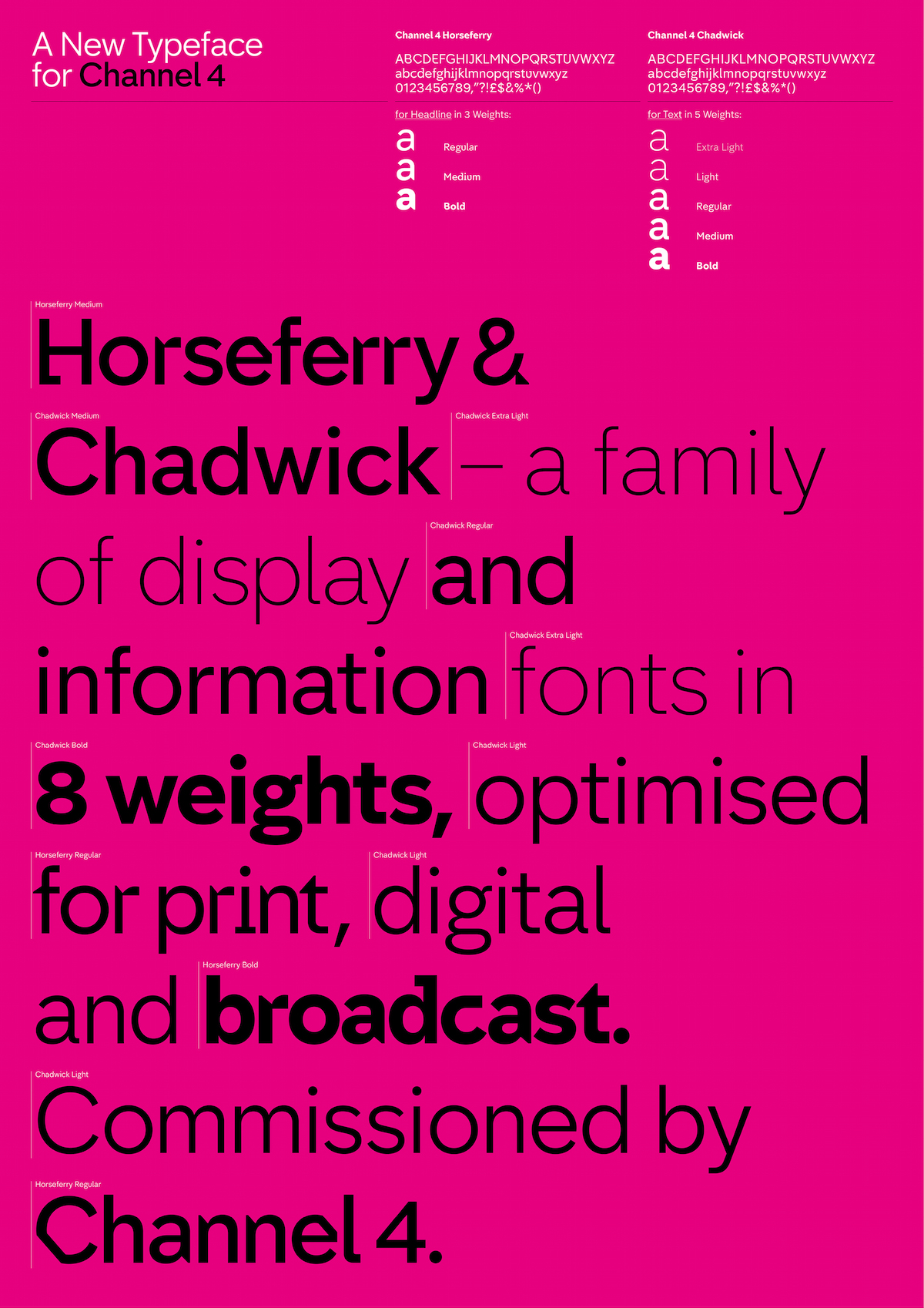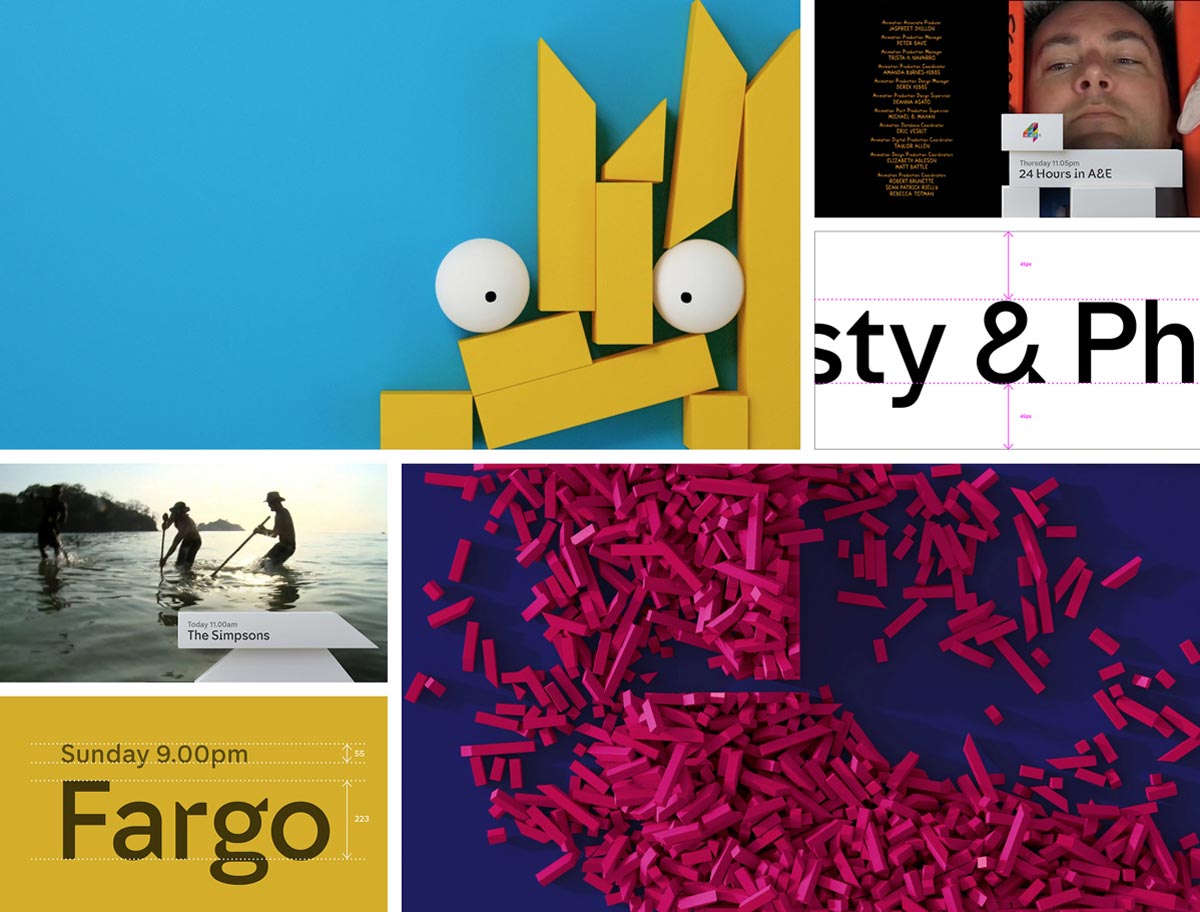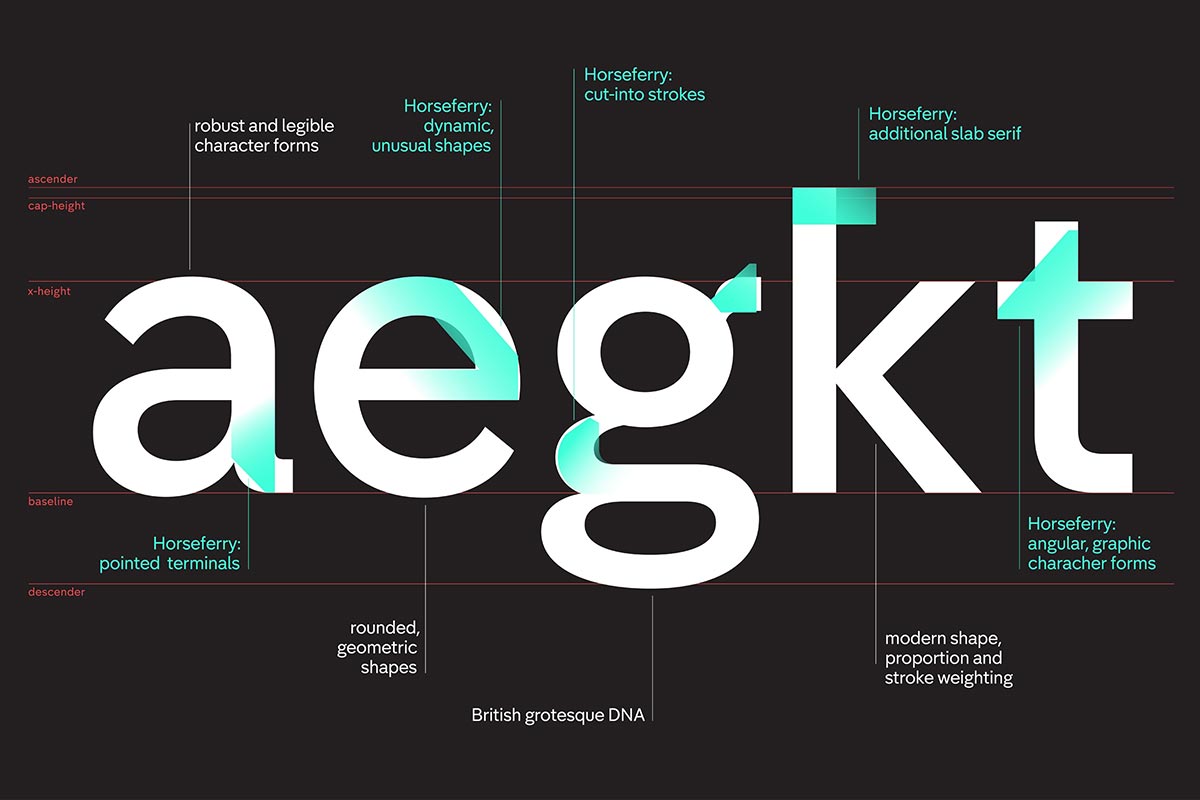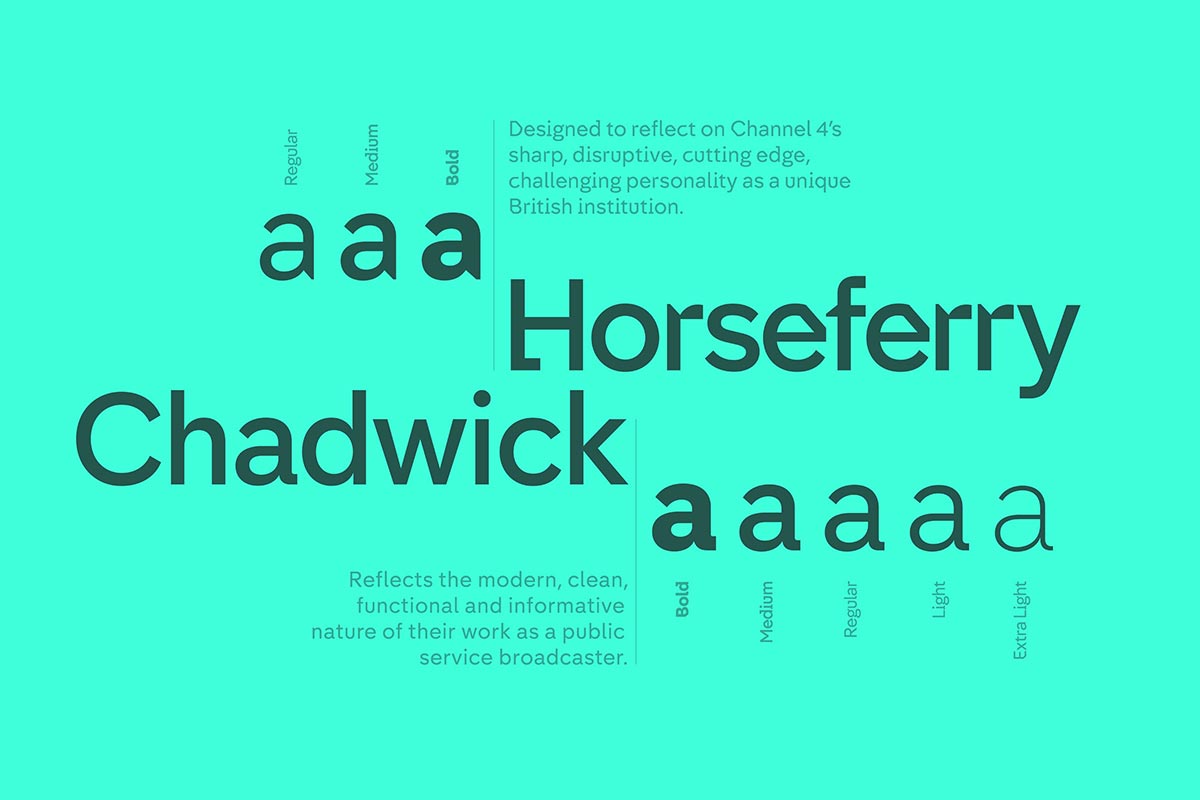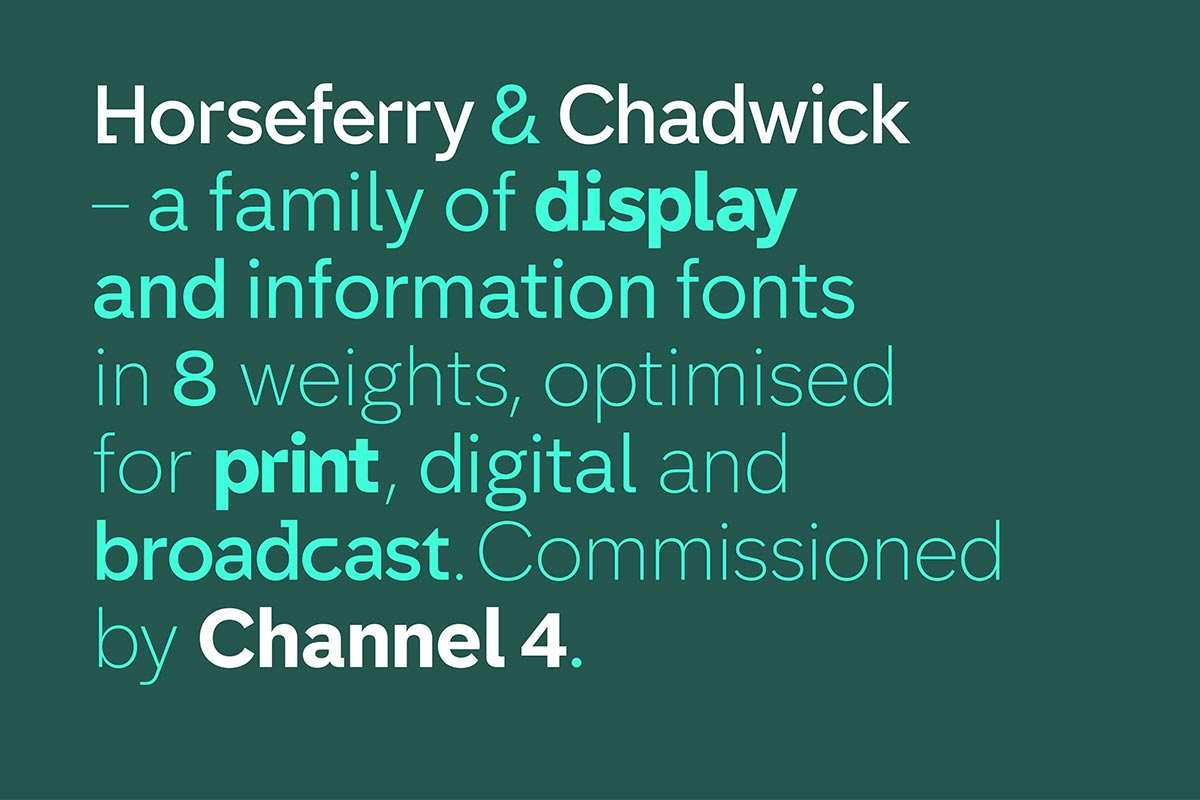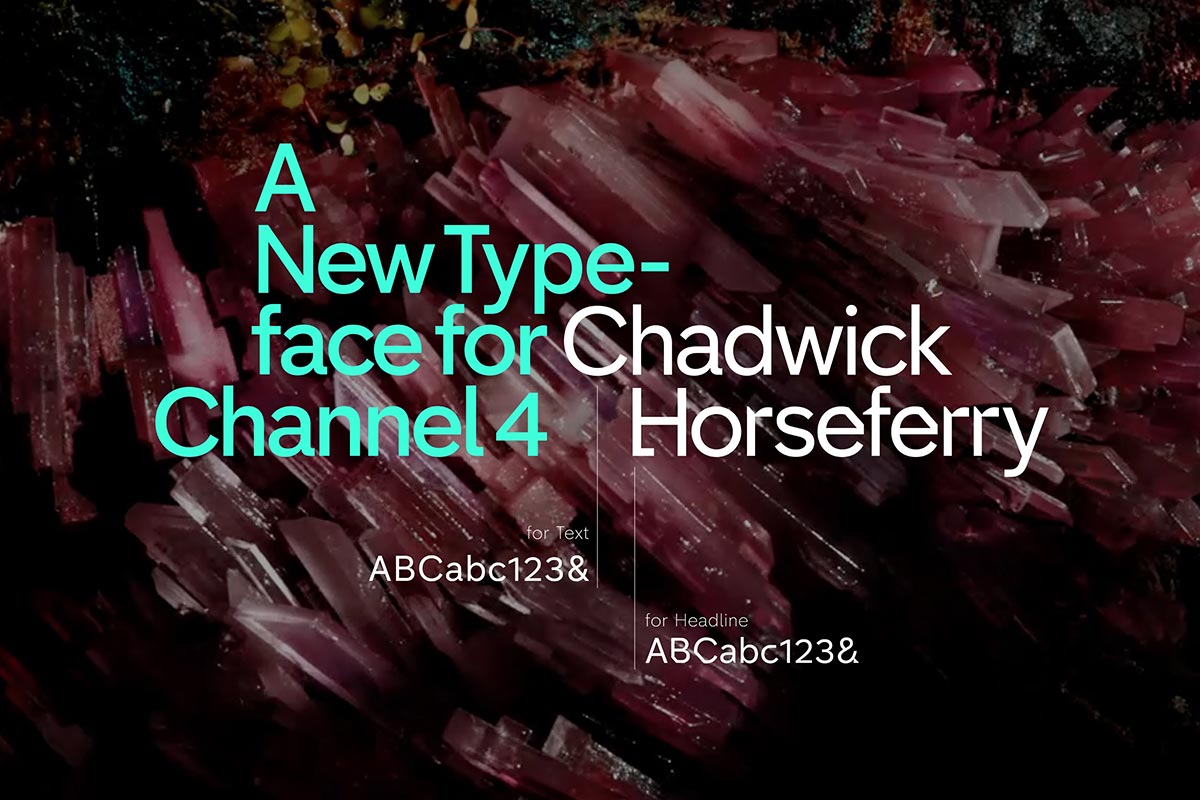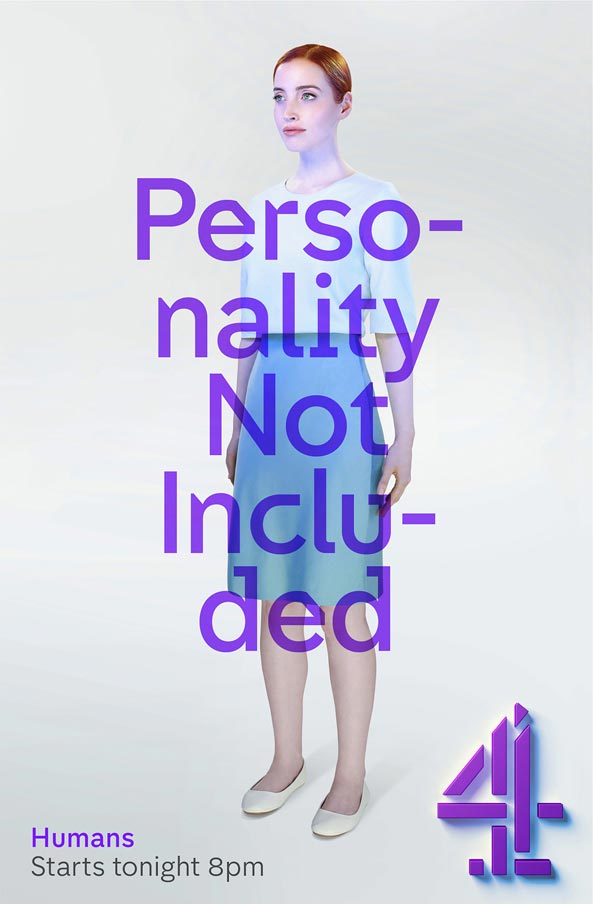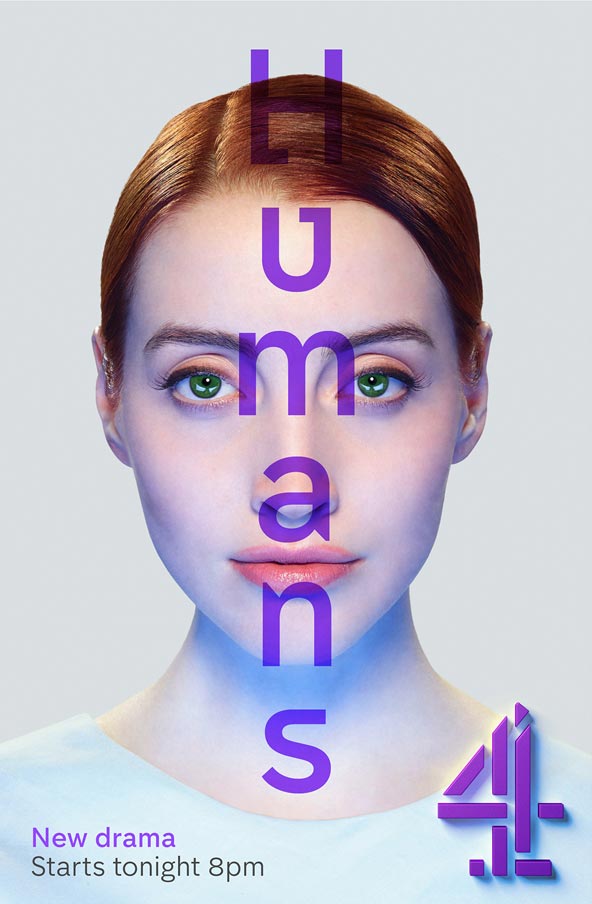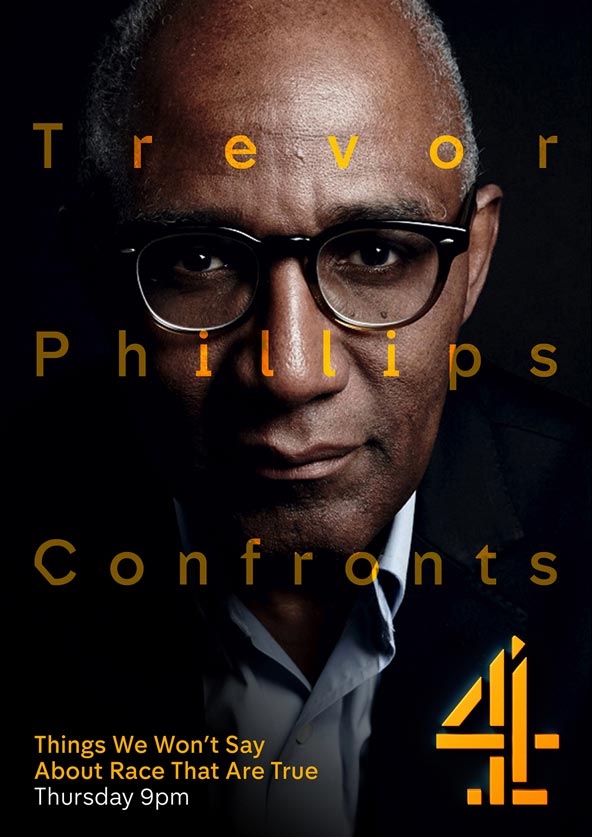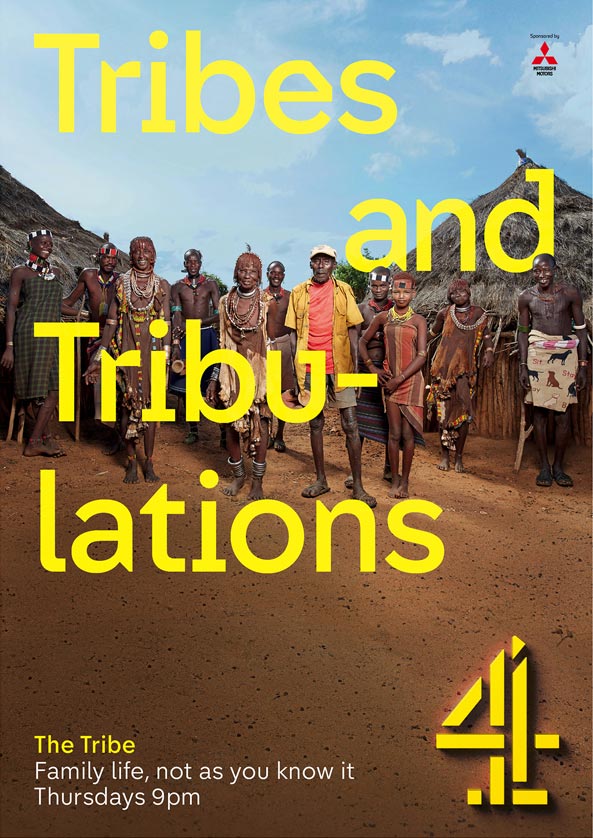
Neville Brody’s Channel4 fonts are the most talked about of the month
With a prodigious move, Channel 4 has launched a refresh of its branding, centred around a bold dynamic and playful take on its classic logo. Featuring idents from Jonathan Glazer and two new fonts from Neville Brody, the rebranding comes ten years after Channel 4’s last refresh. Chris Bovill and John Allison, head of the channel’s in-house creative agency 4Creative (which is behind the concept for the new identity, alongside creative agency DBLG), describe the challenge of rebranding as “Our starting point was that Channel 4 is so much more than just a number,” says Chris Bovill, the head of the channel’s in-house creative agency 4Creative along with John Allison. “We’ve actually got something to say, we’ve got a remit – to be original, alternative, innovative, to be surprising, to be bold. We stand for this – let’s make the branding reflect that” he added.
Whilst famed director’s Jonathan Glazer “idents” (those distinctive short films that run before and after ad breaks), are extremely odd with The Independent calling the work as “brave and bizarre, the concept behind the channel’s use of type is more straightforward, even though the blocks remain central to it.
Designed by iconic British designer Neville Brody – Dean of the School of Communication at the Royal College of Art and founder of Brody Associates – these two bespoke typefaces are named after the streets that Channel 4 sits on. Horseferry and Chadwick come in three and five weights respectively, with Horseferry intended for display purposes, and Chadwick for information.
“We focused on creating a scalable typographic language which was based on the idea of a new British Gothic, one to which we then added imbalanced flourishes and imperfections, celebrating the idea of our nation as one of inventors, eccentrics and individuals,” says the designer – who worked as an art director for The Face magazine in the 1980s.
Chadwick takes its reference from “the dependable language of our motorways, railways and information systems”, while Horseferry is “a corruption of this into a more unpredictable form” he added. With the angled cuts of Horseferry echoing the graphic shapes of the Channel 4 logo and Chadwick’s rounded, geometric shapes designed to be legible enough, these spiky fonts bring an element of surprise to this daring rebranding of UK’s groundbreaking tv channel.
“Horseferry is built out of Chadwick and in it you can find all the little blocks. They’re all buried within it,” says Alice Tonge, creative director at 4Creative. “It’s got loads of character – it’s occasionally spiky, sometimes smooth, sometimes goes against the grain, doesn’t always follow type rules. Full of personality, and only something that Channel 4 could own. That was the big thing – to create something that when you look at it, you know it’s Channel 4.”